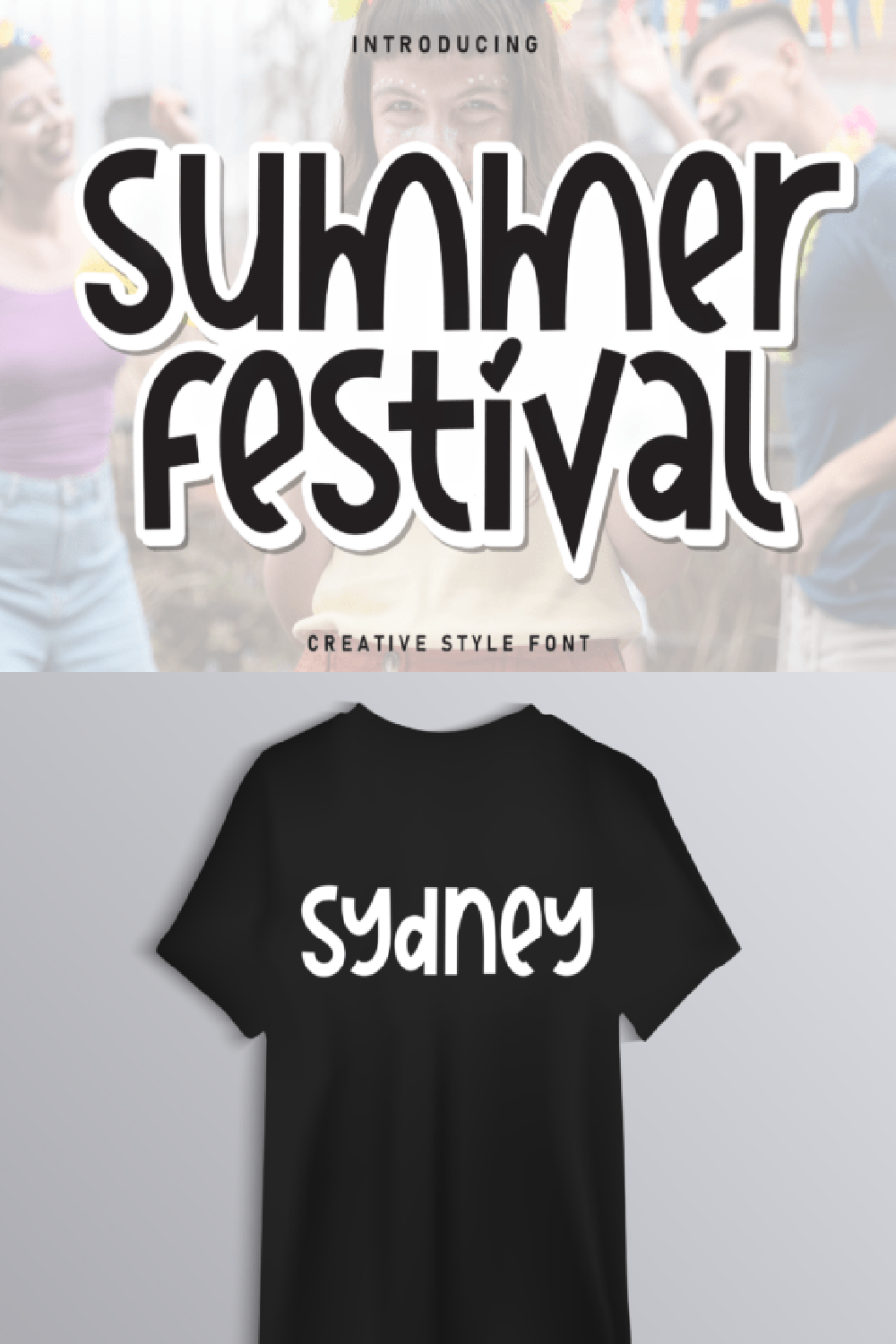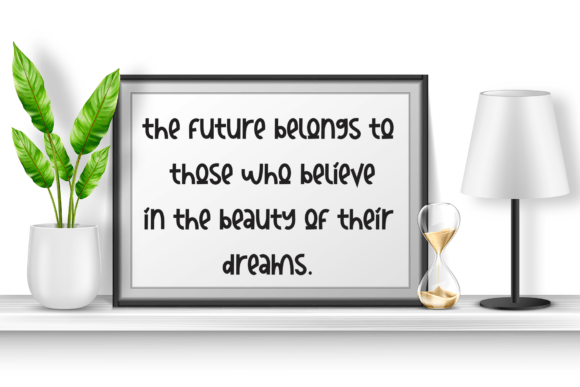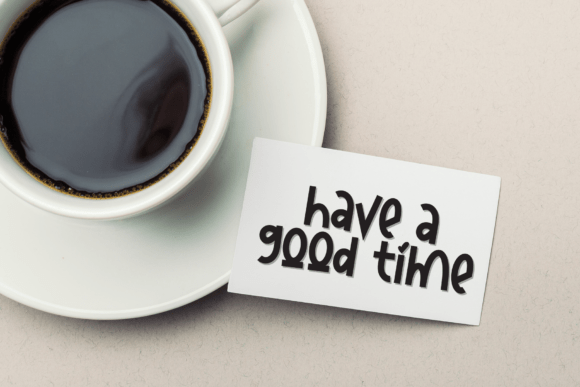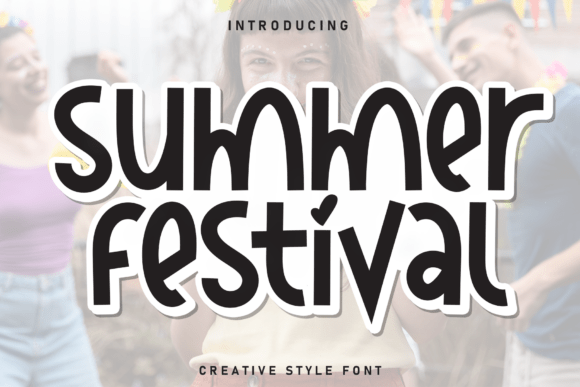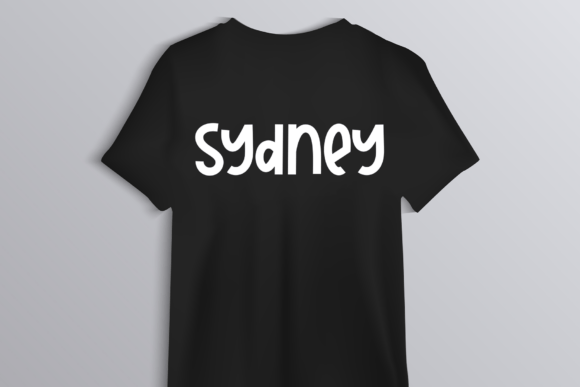
Summer Festival Font: A Cute Display Font for Social Media Design
About the Summer Festival Font
Add a touch of class to your work with the Summer Festival Font, a truly exceptional typeface. Summer Festival is a casual and neat display font that radiates a fresh, friendly vibe. With clean lines and a relaxed structure, it’s perfect for packaging, posters, and social media graphics. The approachable design adds charm and clarity to projects while maintaining a polished appearance.